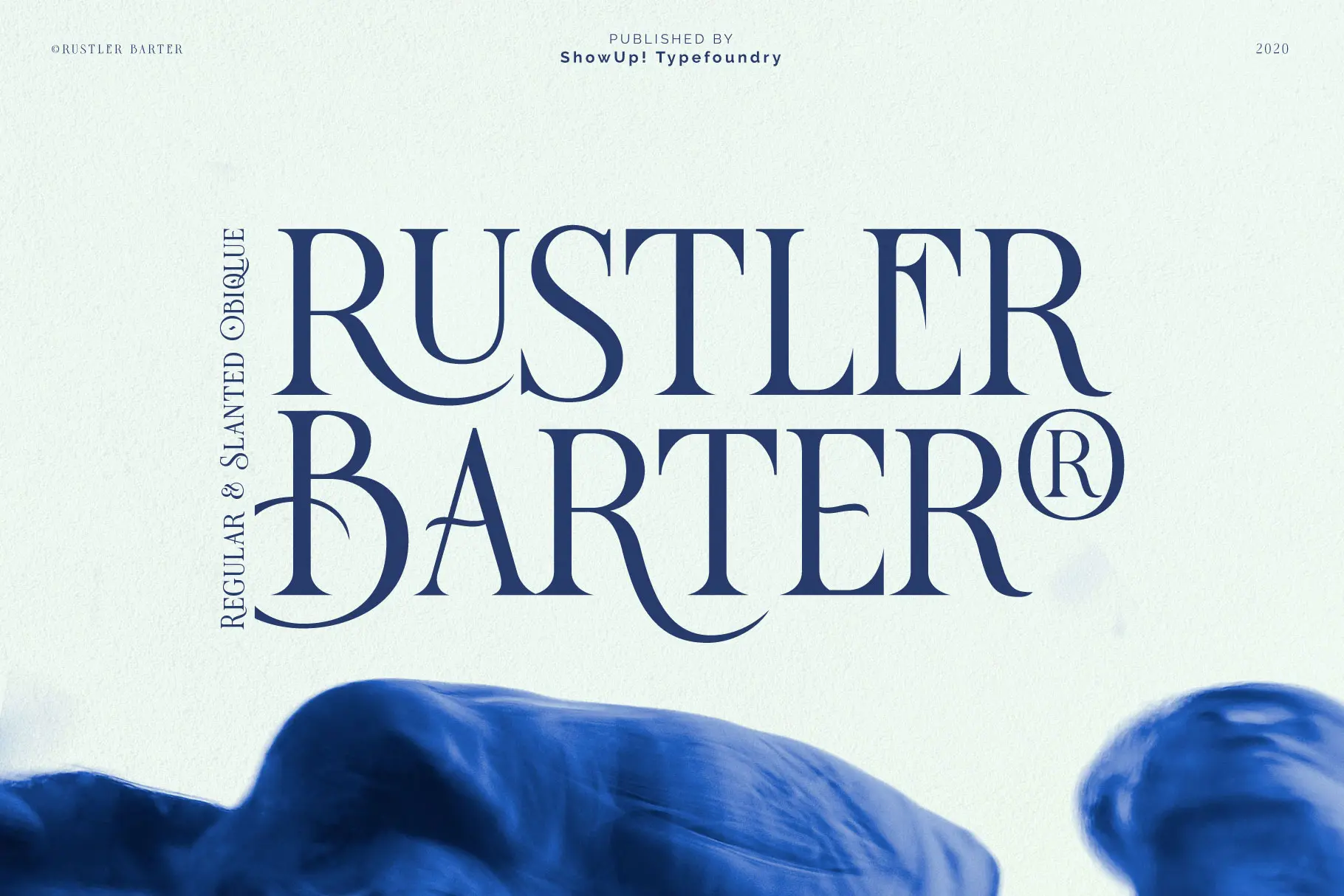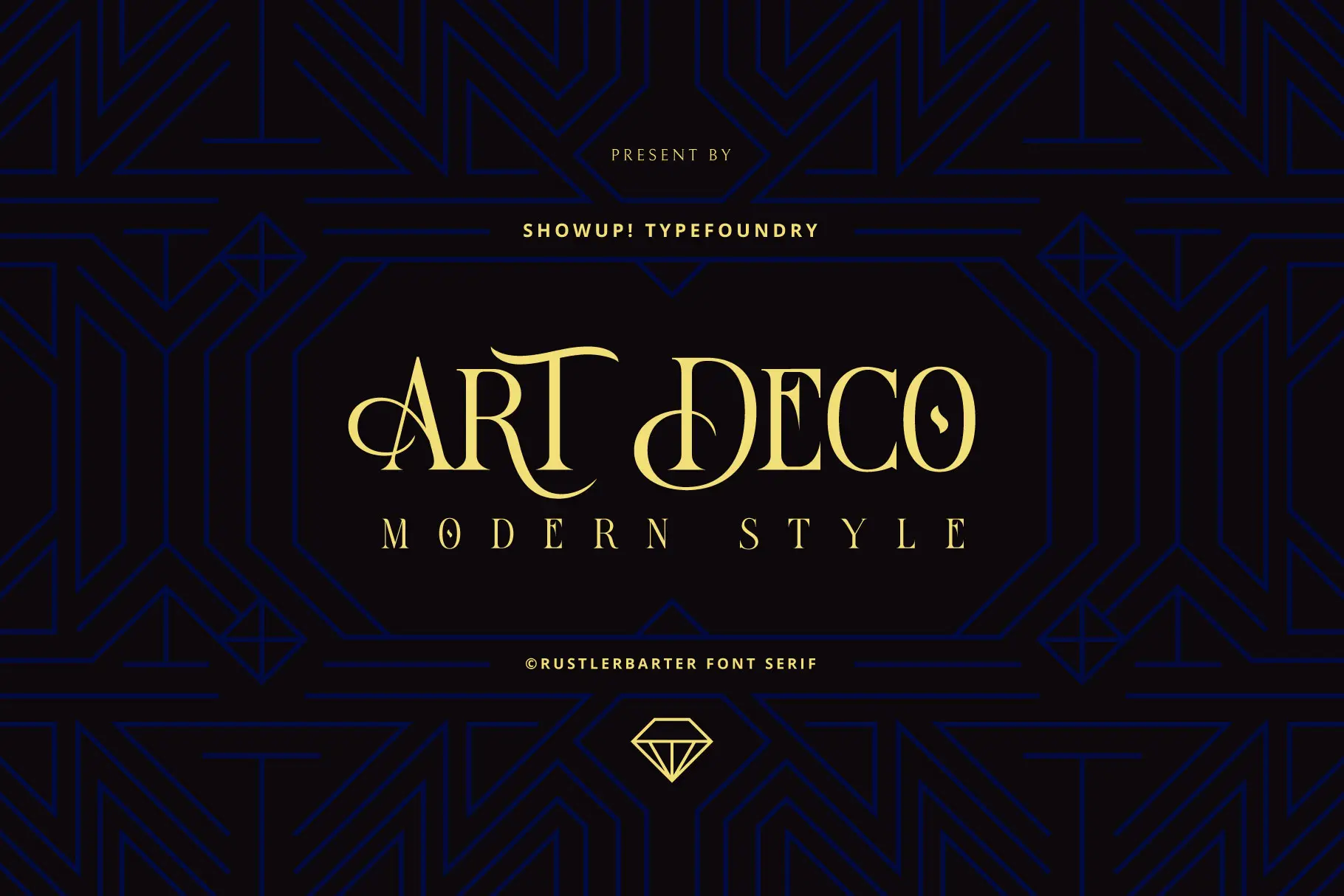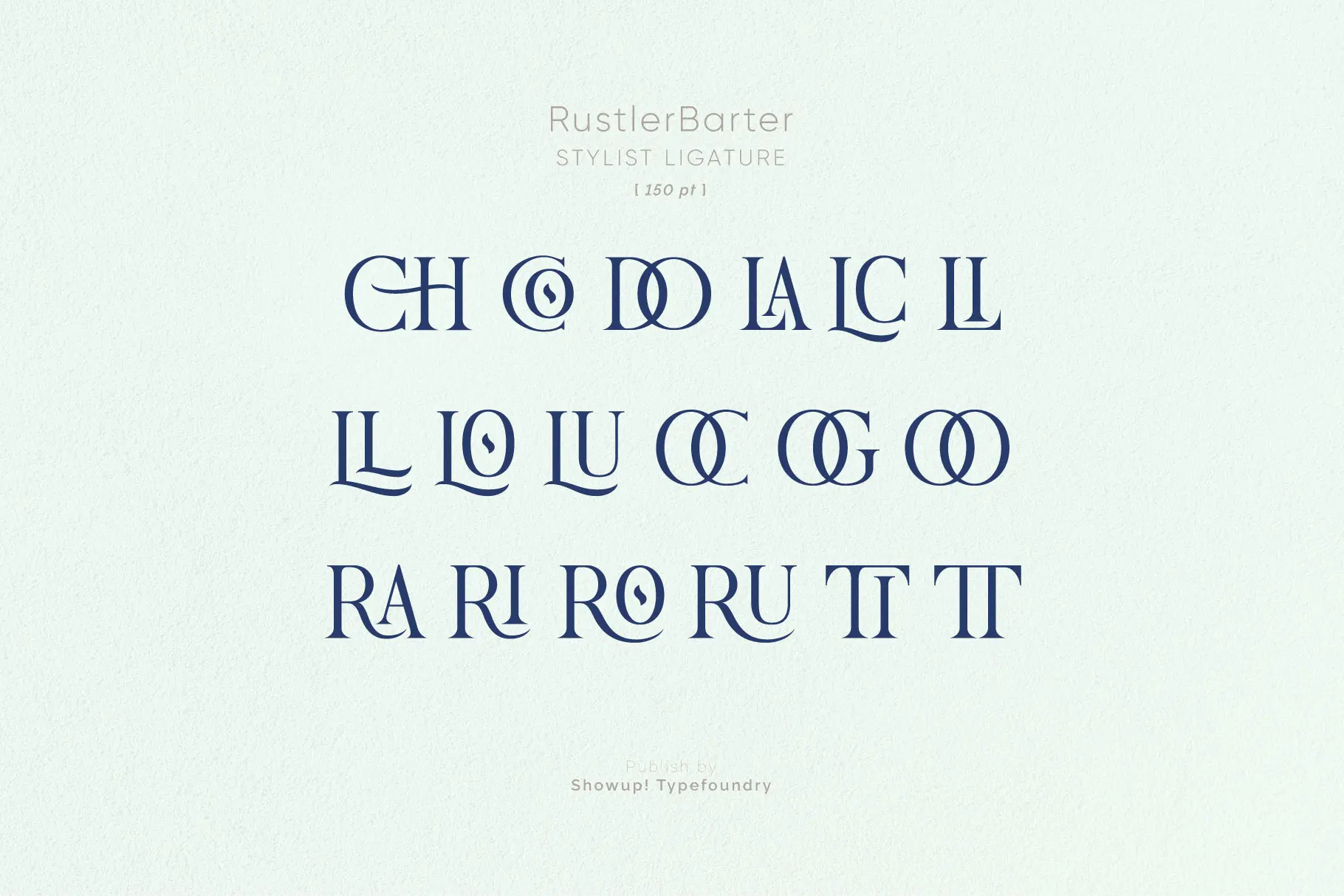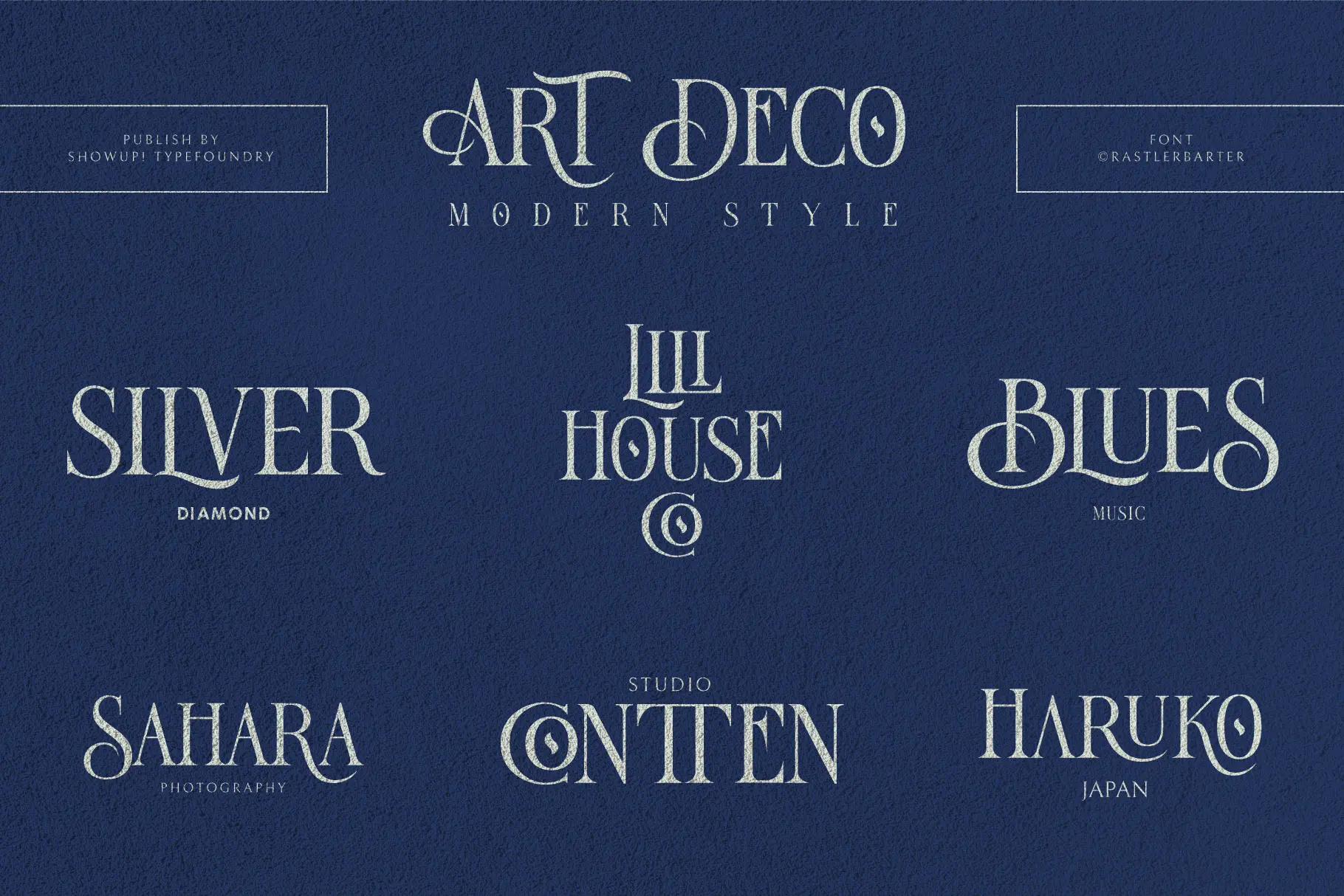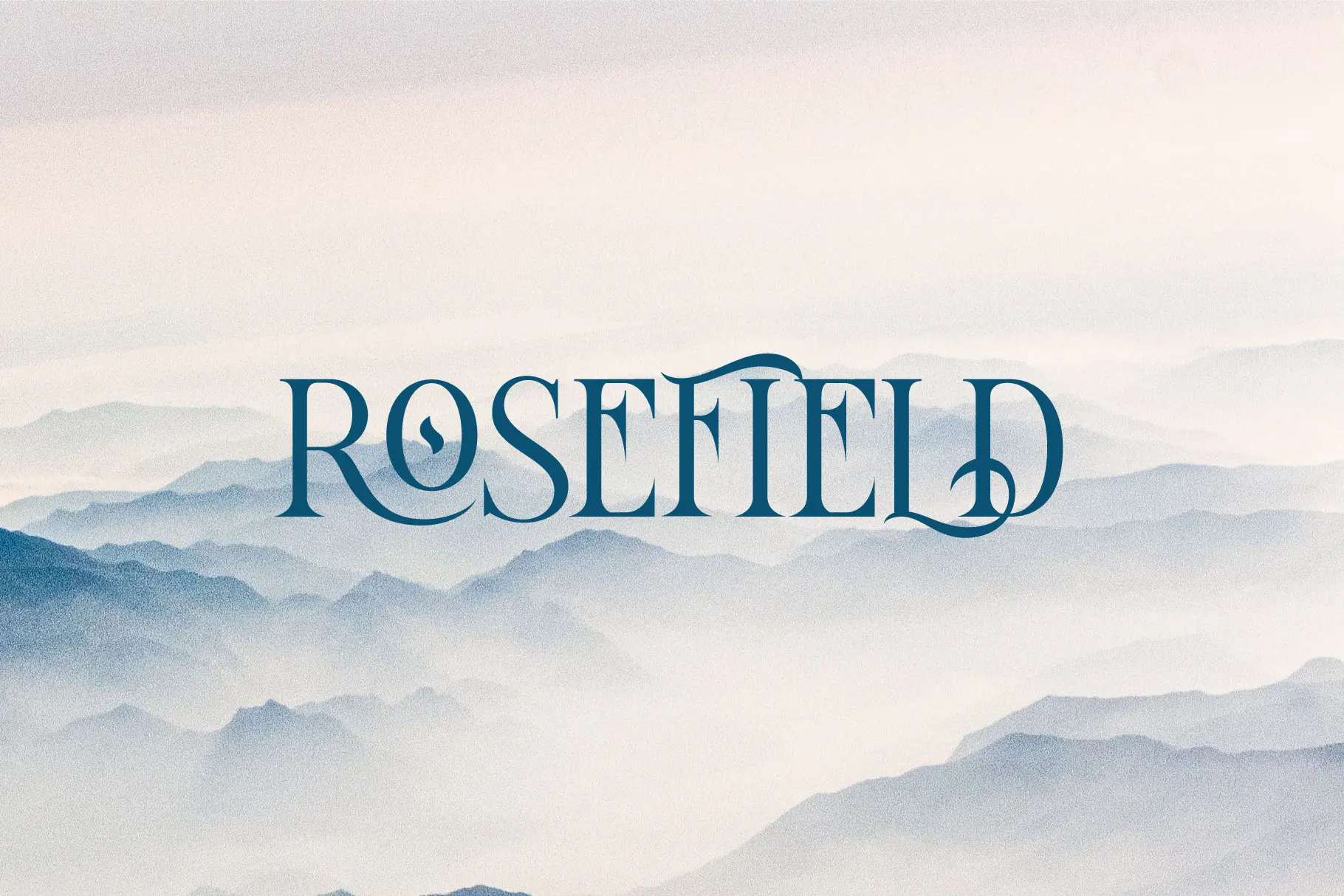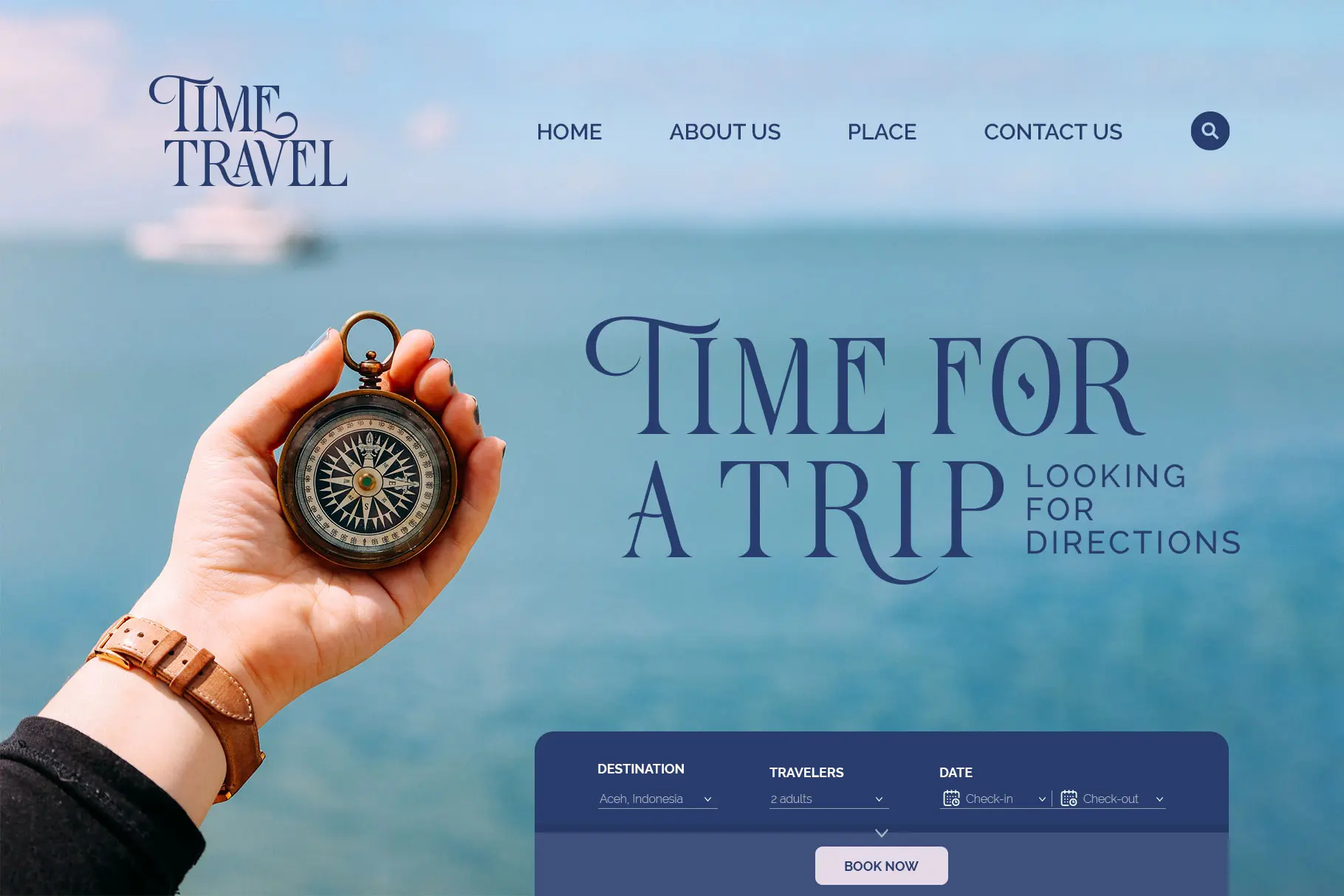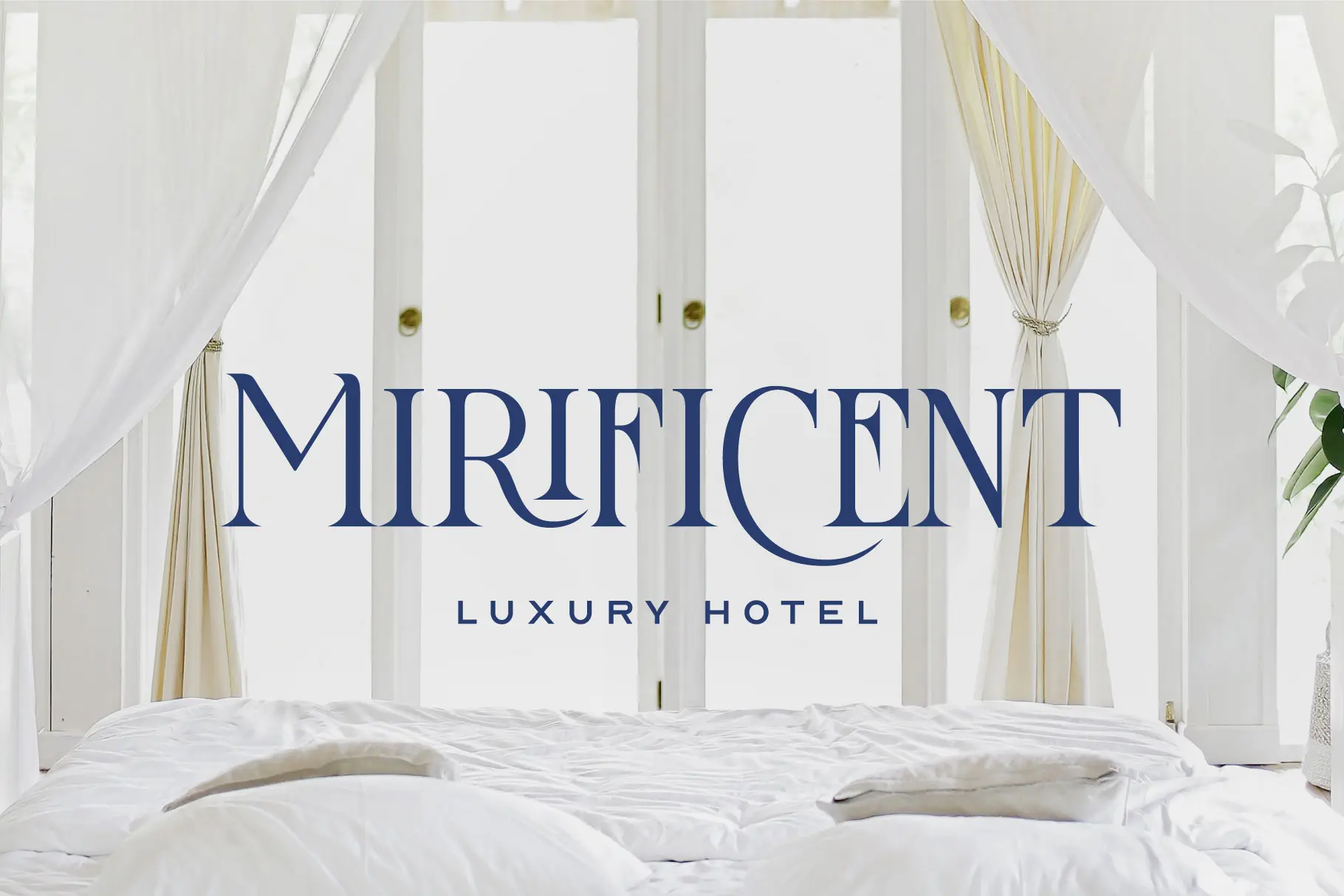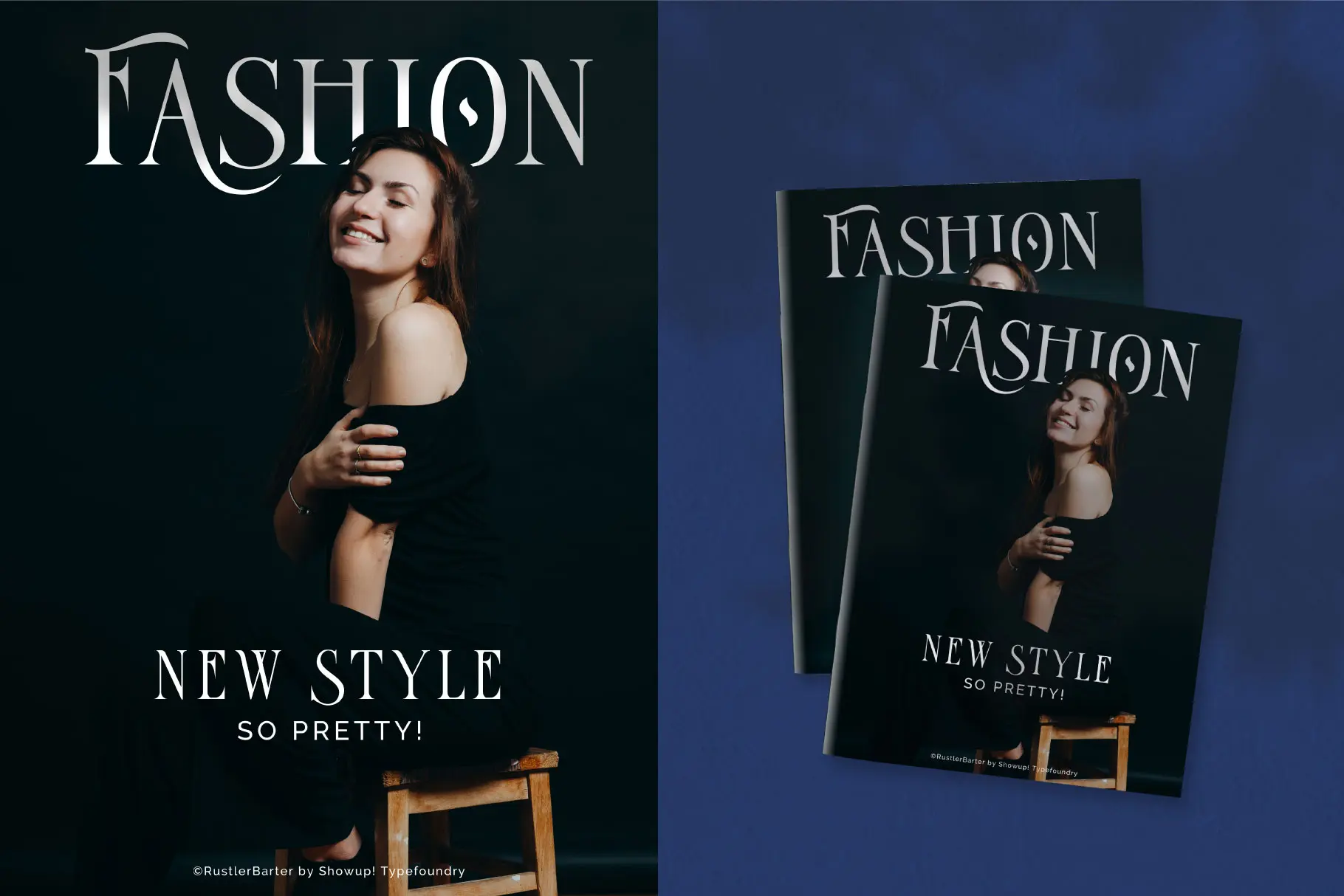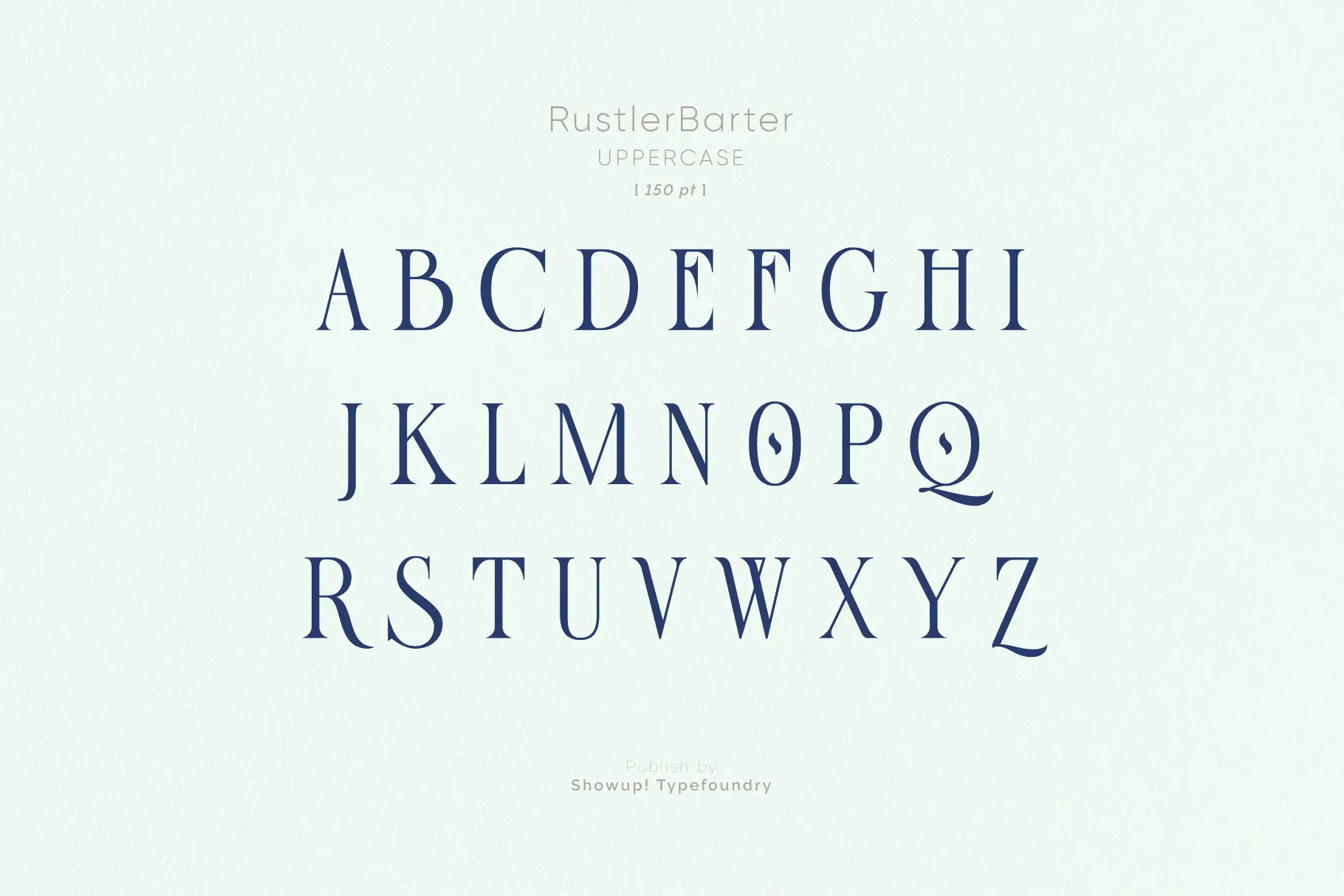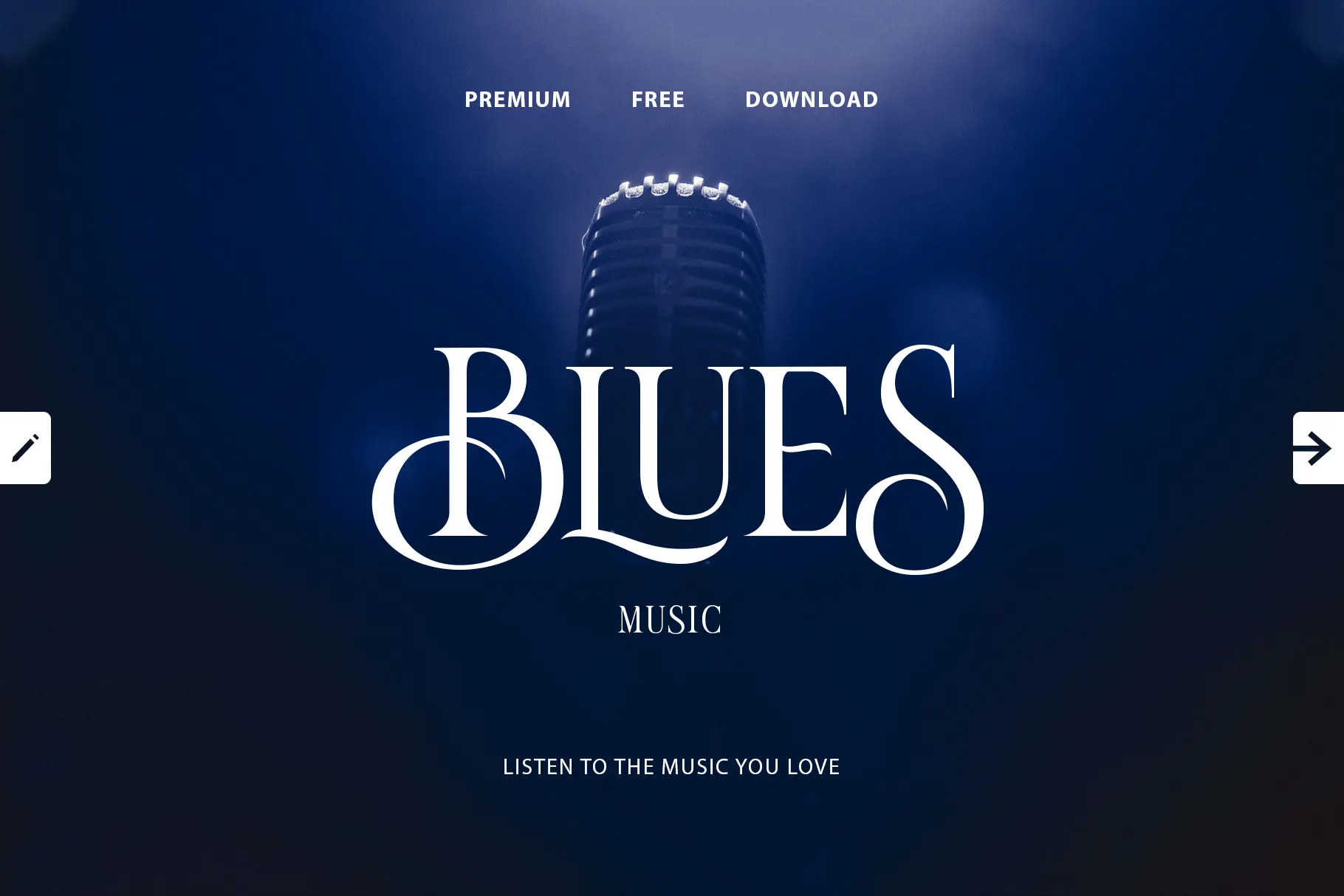
Rustler Barter is an elegant display font inspired by the Art Deco era. It has a sophisticated and luxurious feel and is perfect for use in headlines, logos, and other advertising applications.
Rustler Barter is perfect for adding a touch of sophistication and luxury to your designs. Use it for headlines, logos, advertising, brochures, posters, t-shirts, and more!